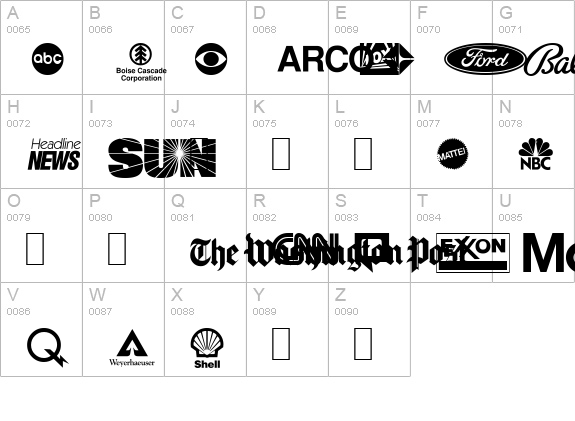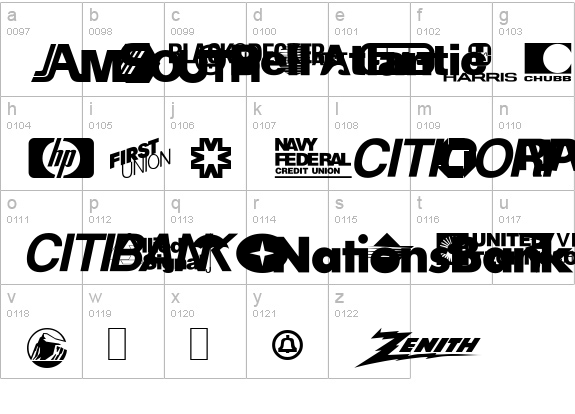
LogosCorporate-VOL1A Font Details
LogosCorporate-VOL1A is a sleek and modern font that exudes professionalism and sophistication. With its clean lines and sharp edges, this font is perfect for creating sleek corporate logos and branding materials. The font features a strong and bold presence that commands attention and makes a statement. Best of all, LogosCorporate-VOL1A is available for free download at FontsMarket.com. This means you can easily access this premium font for your design projects without any cost. Whether you are working on a corporate identity, advertising campaign, or website design, LogosCorporate-VOL1A is a versatile font that will elevate your work to the next level. Download now and add a touch of elegance to your designs with LogosCorporate-VOL1A.